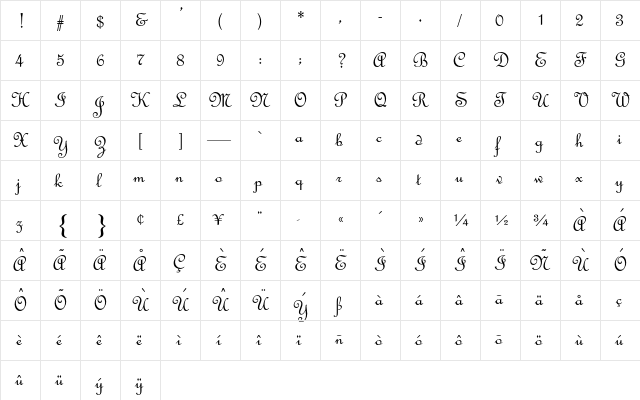
French Script AT Regular
Design Context for French Script AT Typeface
French Script AT flows with the natural rhythm of handwritten lettering, making it ideal for designs that call for warmth and personal expression.
Font Pairing: Combine French Script AT with a simple geometric sans for maximum contrast — the tension between flowing curves and clean structure is a classic typographic pairing.
Pro Tip: Use French Script AT for short runs of text — names, titles, or taglines. Extended body copy in script faces tires the eye quickly.